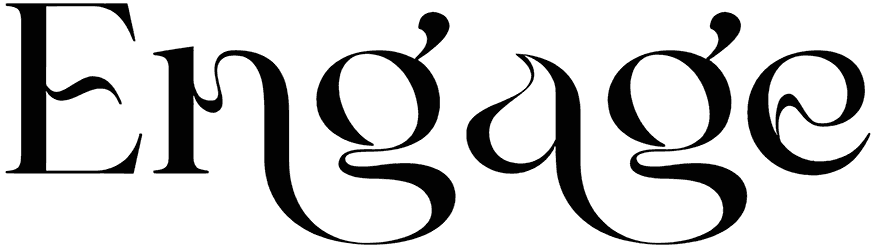
Engage Font
If your plan is to give a unique and striking visual to your text but keep it humble and professional, this fashion font would be an amazing pick. Engage font covers almost full characters in a mesmerizing curvy style. Create an invitation card for the opening of a luxury restaurant, or other creative designs with this ligature font, and surprise your visitors.